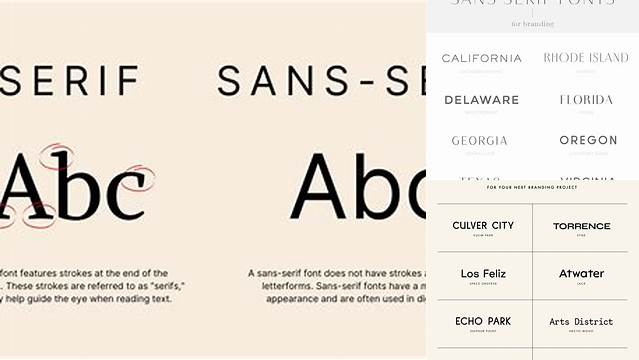
Best Sans Serif Fonts: Enhance Your Reading Experience
Choosing the right font can significantly impact your reading experience. When it comes to readability, sans serif fonts often take the spotlight. But with so many options out there, how do you pick the best sans serif font for your needs? Don't worry, guys, we've got you covered! This guide dives deep into the world of sans serif fonts, exploring their characteristics, benefits, and top recommendations for a seamless reading experience. So, buckle up and let's get started on this font-tastic journey!
1. What Are Sans Serif Fonts?
Before we jump into the specifics, let's understand what sans serif fonts actually are. Simply put, “sans serif” means “without serifs.” Serifs are the small decorative strokes that you see at the end of letters in fonts like Times New Roman. Sans serif fonts, on the other hand, have clean, minimalist lines, making them appear modern and straightforward. Think of fonts like Arial, Helvetica, and Open Sans – these are your classic sans serif examples. The simplicity of these fonts often translates to improved readability, especially in digital environments where screen resolution can sometimes be a challenge. When you're deciding on the best sans serif font, consider the context in which you'll be using it. For digital displays, the clean lines of a sans serif font can reduce eye strain, making them ideal for websites, e-books, and apps. This is because the uniform strokes make each character distinct and easy to recognize, even at smaller sizes. However, the best part about sans serif fonts is how versatile they are. You can use them for almost anything from writing a blog or creating headings for printed posters. In the end, it all boils down to which ones you like!
2. Why Use Sans Serif Fonts for Reading?
So, why should you consider using sans serif fonts for reading? There are several compelling reasons. Firstly, their clean and simple design promotes better readability, particularly on screens. The absence of serifs makes the letters less cluttered, allowing your eyes to flow smoothly from one letter to the next. This is especially beneficial for longer texts or extended reading sessions, where eye strain can become a real issue. Secondly, sans serif fonts often have a modern and minimalist aesthetic, which can enhance the overall look and feel of your content. Whether you're designing a website, writing a report, or crafting an e-book, using the best sans serif font can give your text a professional and polished appearance. Think about your target audience and the message you want to convey. A contemporary sans serif might be perfect for a tech blog, while a more humanist sans serif could be ideal for a literary journal. Choosing the right font is about more than just readability; it's about creating the right mood and tone for your readers. Ultimately, guys, if you want to go for a minimalist style, then you should go for sans serif fonts!
3. Top 5 Best Sans Serif Fonts for Online Reading
When it comes to online reading, certain sans serif fonts shine brighter than others. Here are our top 5 picks for the best sans serif fonts that will make your online reading experience a pleasure:
Open Sans: Designed with an open form and neutral yet friendly appearance, Open Sans is highly readable across various screen sizes. Its versatility makes it a go-to choice for websites, apps, and e-books. Open Sans is all about clarity and simplicity. Its open letterforms and slightly wider proportions make it incredibly easy on the eyes, even when reading long stretches of text. This font is a workhorse – it's reliable, versatile, and always delivers a clean, professional look. Many designers love it because it works beautifully in both headings and body text, making it a seamless choice for any project. Open Sans was designed by Steve Matteson, Type Director of Ascender Corp, and commissioned by Google. So, you know it’s got some serious pedigree behind it! Plus, it's free to use, which is always a bonus. When you’re looking for a font that just works, Open Sans is often the answer.
Roboto: Another Google creation, Roboto, offers a dual nature. It has a mechanical skeleton and largely geometric forms while also featuring friendly and open curves. This balance makes it excellent for both headlines and body text. Roboto is a font that's designed for modern interfaces. It's clean, efficient, and has a touch of personality that sets it apart from other geometric sans serifs. Christian Robertson, the designer, described it as having a “mechanical skeleton” but with curves that allow letters to flow naturally. This means it’s incredibly readable on screens, even at small sizes. Roboto's versatility is one of its biggest strengths. It works equally well for websites, apps, and print materials. It’s the kind of font that fades into the background in the best way possible – it lets your content shine without drawing unnecessary attention to itself. If you need a font that’s both functional and stylish, Roboto is a fantastic choice. It is the definition of a sans serif font that looks great everywhere.
Lato: With its semi-rounded details, Lato exudes warmth while maintaining a sleek and modern feel. Its readability at various sizes makes it a popular choice for both body text and headings. Lato was designed by Łukasz Dziedzic and is described as a sans serif typeface with “serious yet friendly” qualities. The semi-rounded details at the ends of the strokes give it a warm, approachable feel, while the strong structure ensures it remains highly legible. Lato is a fantastic choice for anyone looking for a font that’s both professional and inviting. It’s incredibly versatile and works well in a variety of contexts, from websites and blogs to presentations and print materials. One of the reasons Lato is so popular is its excellent readability. The open letterforms and balanced proportions make it easy on the eyes, even when reading long blocks of text. If you're aiming for a design that's both modern and friendly, Lato might be the perfect sans serif font for you.
Helvetica: A classic and widely used font, Helvetica is known for its clean lines and neutral appearance. Its timeless design ensures readability across various media and applications. Helvetica is arguably one of the most iconic typefaces of all time. Designed in 1957 by Max Miedinger and Eduard Hoffmann, it has become synonymous with clean, modern design. Its neutral appearance makes it incredibly versatile – it can be used in almost any context, from corporate branding to editorial design. Helvetica’s strength lies in its simplicity. The even strokes and consistent letterforms make it highly legible, even at small sizes. It’s a font that doesn’t shout for attention but quietly and confidently gets the job done. While some designers might argue that Helvetica is overused, there’s no denying its enduring appeal and effectiveness. If you're looking for a font that’s classic, reliable, and highly readable, Helvetica is always a solid choice, guys. This sans serif font looks clean and can be used for almost anything!
Arial: Often compared to Helvetica, Arial is another widely used sans serif font that offers excellent readability. Its familiar design makes it a safe and reliable choice for various reading platforms. Arial is a typeface that’s so ubiquitous, you might not even realize how often you see it. Designed by Patricia Saunders and Robin Nicholas in 1982, it was created as a more affordable alternative to Helvetica. While it shares many similarities with its famous cousin, Arial has its own distinct characteristics. It is slightly wider, and its strokes have a bit more variation in thickness. Arial is a workhorse font – it’s reliable, readable, and available on almost every computer system. This makes it an excellent choice for anyone who needs a font that will display consistently across different platforms. While it might not be the most exciting typeface, Arial’s strength lies in its simplicity and clarity. If you need a font that’s universally compatible and highly legible, Arial is a safe bet. It's a basic sans serif font, but it always does the trick!
4. How to Choose the Best Sans Serif Font for Your Needs
Choosing the best sans serif font isn't just about picking one that looks good. It's about finding a font that meets your specific needs and enhances the overall reading experience. Here’s a step-by-step guide to help you make the right choice:
1. Define Your Purpose
First, consider what you'll be using the font for. Are you designing a website, writing an e-book, or creating marketing materials? The purpose will influence the font's characteristics you need. For example, a website might benefit from a font optimized for screen readability, while a printed brochure might allow for more stylistic choices. If you're writing an e-book, you'll want a font that's easy on the eyes for extended reading. If you're designing a website, you'll need a font that loads quickly and looks good on various devices. Think about the end-user and what will make their experience the best it can be. Sans serif fonts are diverse, but finding the one that aligns with your purpose is the first key step. You may even ask yourself “what am I even trying to achieve here?”. It could be the difference between a hit and a miss.
2. Consider Readability
Readability is paramount, especially for body text. Look for fonts with clear, open letterforms and adequate spacing. Test the font at different sizes to ensure it remains legible. A font might look great in a headline but become a blurry mess in body text. Pay attention to the x-height (the height of lowercase letters) and the stroke contrast (the difference in thickness between the thickest and thinnest parts of the letters). Higher x-heights and moderate stroke contrast generally improve readability. Also, consider the font's kerning (the space between individual letters) and tracking (the overall spacing of the font). Well-kerned and tracked fonts are easier to read and less likely to cause eye strain. The goal is to make the text as effortless as possible to read. Choosing sans serif fonts with excellent readability can significantly improve user engagement and comprehension, guys.
3. Think About Your Audience
Who are you designing for? Your target audience can influence your font choice. A younger audience might appreciate a modern and playful font, while a more professional audience might prefer a classic and conservative one. Consider the demographics, preferences, and expectations of your readers. A sans serif font that resonates with your audience will help you communicate your message more effectively. For example, if you're designing a website for a tech startup, you might choose a sleek, geometric sans serif that conveys innovation and modernity. On the other hand, if you're designing a brochure for a financial institution, you might opt for a more traditional and authoritative sans serif. The key is to choose a font that aligns with your brand's identity and resonates with your target audience. It's like choosing the right outfit for an occasion – you want to make a good impression and fit in with the crowd.
4. Test and Compare
Don't settle for the first font you like. Test several fonts side-by-side to compare their readability and overall appearance. Use real content and view it on different devices and screen sizes. Testing allows you to see how the font performs in various contexts. Try using the font in a mock-up of your design to get a sense of how it looks in the final product. Print out samples and view them in different lighting conditions. Ask for feedback from others – sometimes a fresh perspective can reveal issues you might have missed. There are numerous online tools and resources that can help you compare fonts and test their readability. Don't underestimate the power of testing; it can save you from making a font choice that you later regret. This applies to all sans serif fonts!
5. Consider Font Pairing
In many designs, you'll use more than one font. Think about how your chosen sans serif font pairs with other fonts, such as serif fonts for headings or decorative fonts for accents. A harmonious font pairing can enhance the visual appeal of your design. The general rule is to choose fonts that complement each other without being too similar. Pairing a sans serif font with a serif font can create a nice contrast and hierarchy in your design. For example, you might use a bold sans serif for headlines and a classic serif for body text. Alternatively, you can pair two different sans serif fonts, but make sure they have enough contrast in their weights and styles to avoid visual monotony. Online resources and font pairing tools can provide inspiration and guidance. Remember, the goal is to create a visually balanced and engaging design that enhances readability and user experience.
5. The Importance of Legibility in Sans Serif Fonts
Legibility is a critical aspect of font design, and it's particularly important when choosing sans serif fonts for reading. Legibility refers to how easily individual characters can be distinguished from one another. A highly legible font allows readers to quickly and effortlessly recognize each letter, which reduces eye strain and improves reading comprehension. Several factors contribute to a font's legibility, including the shape and proportions of the letters, the stroke contrast, and the spacing between characters. When evaluating sans serif fonts, pay close attention to these factors to ensure that your chosen font is as legible as possible. Fonts with clear, open letterforms and consistent stroke widths tend to be more legible than fonts with complex or stylized designs. Adequate spacing between letters and words is also essential for legibility. A font that is too tightly spaced can be difficult to read, while a font that is too loosely spaced can appear disjointed. Ultimately, the best way to assess a font's legibility is to test it with real text in the context in which it will be used. If your readers can easily and comfortably read the text, you've likely chosen a legible font.
6. Best Sans Serif Fonts for Headings
While some sans serif fonts excel in body text, others shine as headings. The best sans serif font for headings should be bold, attention-grabbing, and easy to read at larger sizes. Here are a few top contenders:
1. Montserrat
Montserrat is a geometric sans serif that exudes modernity and sophistication. Its strong letterforms and clean lines make it an excellent choice for headings. Montserrat was inspired by the urban typography of the Montserrat neighborhood in Buenos Aires. It has a distinct visual presence that makes it stand out, which is perfect for headlines and titles. This sans serif font is also surprisingly readable at smaller sizes, making it versatile for use in both headings and body text. If you're looking for a font that's both stylish and functional, Montserrat is a great option. The balanced proportions and clear letterforms ensure that your headings will be eye-catching and easy to read, making it a popular choice among designers and brands.
2. Bebas Neue
Bebas Neue is a tall and condensed sans serif that commands attention. Its clean, minimalist design makes it a popular choice for headlines and posters. Bebas Neue has become a go-to font for designers looking to make a statement. Its narrow letterforms allow you to fit more text into a limited space, making it ideal for headlines, banners, and other display purposes. This sans serif font has a modern, almost industrial feel that works well in a variety of contexts. While it's primarily used for headings, Bebas Neue can also be effective in short blocks of text where a strong visual impact is desired. If you're aiming for a bold and contemporary look, Bebas Neue is a fantastic choice. Keep in mind that because this font is so condensed, it is not the best for writing long text.
3. Raleway
Raleway is an elegant sans serif with a slightly more delicate appearance. Its thin strokes and refined letterforms make it perfect for headings that need a touch of sophistication. Raleway is a versatile font that works well in a variety of applications, but it truly shines as a headline typeface. Its clean lines and subtle curves give it a polished and professional look. This sans serif font is particularly effective in designs where you want to convey a sense of elegance and refinement. While it’s beautiful in headlines, Raleway can also be used in body text, especially in designs where a touch of sophistication is desired. If you're looking for a font that strikes a balance between modernity and elegance, Raleway is an excellent option, guys. Overall, this may be the best sans serif font in the list.
7. Best Sans Serif Fonts for Body Text
For body text, readability is key. The best sans serif font should be easy on the eyes for extended reading. Here are some top choices:
1. Open Sans (Revisited)
Open Sans' open letterforms and neutral appearance make it an excellent choice for body text, as we mentioned earlier. It's highly readable across various screen sizes. Open Sans is a tried-and-true option for body text. Its clear and straightforward design ensures that your text will be easy to read, even in long blocks. This sans serif font was specifically designed for readability, making it a reliable choice for websites, apps, and print materials. The slightly wider proportions of the letters contribute to its excellent legibility. If you're looking for a font that's both functional and visually appealing, Open Sans is a fantastic choice for your body text needs.
2. Lato (Revisited)
Lato's semi-rounded details give it a warm and friendly feel, making it inviting for readers. Its readability at various sizes makes it a strong contender for body text. Lato strikes a perfect balance between professionalism and approachability. Its friendly and inviting letterforms make it a pleasure to read, while its clean lines ensure that it remains highly legible. This sans serif font is a great choice for body text in a variety of contexts, from websites and blogs to reports and presentations. The subtle warmth of Lato can help engage your readers and make your content more accessible. If you want a font that’s both readable and inviting, Lato is an excellent pick.
3. Roboto (Revisited)
Roboto's dual nature makes it suitable for both headlines and body text. Its clean lines and open forms ensure readability, even at smaller sizes. Roboto is a versatile and reliable option for body text. Its clean and efficient design ensures that your text will be easy to read on screens. This sans serif font is specifically optimized for digital environments, making it an excellent choice for websites, apps, and e-books. The mechanical skeleton of Roboto provides a strong foundation, while its friendly curves add a touch of personality. If you're looking for a font that's both functional and stylish, Roboto is a solid choice for your body text needs. Overall, you can never go wrong with sans serif fonts such as Roboto.
8. Sans Serif Fonts for Print vs. Digital
When choosing sans serif fonts, it's important to consider whether you're designing for print or digital media. While some fonts work well in both formats, others are better suited for one or the other. In print, you have more flexibility with font choice because you don't have to worry about screen resolution or rendering issues. Digital media, on the other hand, requires fonts that are optimized for screen display. Fonts with clear, open letterforms and consistent stroke widths tend to work well in both print and digital formats. However, some fonts that look great in print may appear blurry or pixelated on screens, especially at smaller sizes. Similarly, some fonts that are highly legible on screens may look too stark or minimalist in print. When designing for both print and digital media, it's best to choose a sans serif font that's versatile enough to perform well in both contexts. Testing your font choices in both formats is always a good idea to ensure that they look their best in any medium.
9. Geometric Sans Serif Fonts
Geometric sans serif fonts are characterized by their clean lines, simple shapes, and often circular or rectangular forms. These fonts have a modern and minimalist aesthetic, making them popular choices for a variety of design applications. Geometric sans serif fonts often convey a sense of precision, efficiency, and modernity. They work well in corporate branding, website design, and editorial layouts. Some popular geometric sans serif fonts include Futura, Gotham, and Avenir. Futura, designed in 1927, is a classic example of a geometric sans serif with its perfect circles and triangles. Gotham, a more recent design, has a similarly clean and geometric feel. Avenir, designed by Adrian Frutiger, combines geometric shapes with a humanist touch. When choosing a geometric sans serif, consider the overall tone and message of your design. These fonts can be incredibly effective when used thoughtfully, but they may not be the best choice for designs that require a warmer or more traditional feel. Overall, remember that sans serif fonts offer a wide range of flexibility.
10. Humanist Sans Serif Fonts
Humanist sans serif fonts are inspired by traditional calligraphy and handwriting, giving them a more organic and approachable feel. These fonts often feature subtle variations in stroke weight and letterform that mimic the natural rhythm of handwriting. Humanist sans serif fonts are generally considered to be more readable than geometric sans serif fonts, especially in body text. They convey a sense of warmth, friendliness, and authenticity. Some popular humanist sans serif fonts include Gill Sans, Myriad, and Lucida Grande. Gill Sans, designed by Eric Gill in the early 20th century, is a classic example of a humanist sans serif. Myriad, designed by Robert Slimbach and Carol Twombly for Adobe, is another popular choice for its versatility and readability. Lucida Grande is a humanist sans serif that was designed specifically for on-screen readability, making it a great choice for websites and user interfaces. When choosing a humanist sans serif, consider the overall tone and message of your design. These fonts are particularly well-suited for designs that aim to convey a sense of warmth, trust, and human connection.
11. Modern Sans Serif Fonts
Modern sans serif fonts are characterized by their clean lines, sharp angles, and often high stroke contrast. These fonts have a sleek and sophisticated aesthetic, making them popular choices for contemporary designs. Modern sans serif fonts often convey a sense of innovation, technology, and elegance. They work well in branding, advertising, and editorial design. Some popular modern sans serif fonts include Akzidenz-Grotesk, Univers, and DIN 1451. Akzidenz-Grotesk, designed in the late 19th century, is considered to be one of the earliest and most influential modern sans serif fonts. Univers, designed by Adrian Frutiger in the 1950s, is another classic example of a modern sans serif with its clean and consistent letterforms. DIN 1451, originally designed for German road signage, is a highly legible and functional modern sans serif. When choosing a modern sans serif, consider the overall tone and message of your design. These fonts can be incredibly effective when used thoughtfully, but they may not be the best choice for designs that require a warmer or more traditional feel. You can never go wrong with the modern sans serif fonts!
12. Sans Serif Fonts for Websites
Choosing the right font for your website is crucial for creating a positive user experience. The best sans serif font for websites should be highly readable on screens, load quickly, and complement your overall design aesthetic. When selecting fonts for your website, consider factors such as font size, line height, and contrast. Smaller font sizes may require fonts with more open letterforms and generous spacing. Adequate line height is essential for readability, especially in long blocks of text. Sufficient contrast between the text and background colors is also crucial for ensuring that your text is easy to read. Some popular sans serif fonts for websites include Open Sans, Roboto, Lato, and Montserrat. These fonts are all highly legible on screens and come in a variety of weights and styles, giving you plenty of flexibility in your design. Testing your font choices on different devices and browsers is always a good idea to ensure that your website looks its best for all users.
13. Sans Serif Fonts for Mobile Devices
Designing for mobile devices requires special attention to typography. The best sans serif font for mobile should be highly legible on small screens and in various lighting conditions. Mobile users often read text in short bursts, so readability is paramount. Choose fonts with clear, open letterforms and adequate spacing to ensure that your text is easy to scan and comprehend. Font size is also an important consideration for mobile devices. Smaller screens may require larger font sizes to maintain legibility. Consider using responsive typography techniques to adjust font sizes based on screen size and orientation. Some popular sans serif fonts for mobile devices include Roboto, Open Sans, and Noto Sans. These fonts are all designed to be highly legible on screens, even at smaller sizes. Testing your font choices on different mobile devices is essential to ensure that your text looks its best for all users. Sans serif fonts for mobile users are extremely important, since the majority of web users use mobile devices.
14. Sans Serif Fonts for E-books
Choosing the right font for your e-book can significantly enhance the reading experience. The best sans serif font for e-books should be easy on the eyes for extended reading sessions. Readers often spend hours reading e-books, so readability is crucial. Choose fonts with clear, open letterforms and consistent stroke widths to minimize eye strain. Font size and line height are also important considerations for e-books. Readers should be able to adjust the font size to their liking, so choose fonts that look good at a variety of sizes. Adequate line height is essential for readability, especially in long paragraphs. Some popular sans serif fonts for e-books include Open Sans, Lato, and Charis SIL. These fonts are all designed to be highly legible and comfortable to read for extended periods. Remember, the right font can make a big difference in the reader's enjoyment and comprehension of your e-book.
15. Pairing Sans Serif Fonts with Serif Fonts
Font pairing is an art, and one of the most common pairings is sans serif with serif fonts. This combination can create a visually appealing and balanced design. Serif fonts, with their small decorative strokes, often convey a sense of tradition and authority. Sans serif fonts, on the other hand, have a more modern and minimalist feel. When pairing sans serif fonts with serif fonts, it's important to choose fonts that complement each other without being too similar. A classic combination is a bold sans serif for headings paired with a more traditional serif for body text. This creates a clear visual hierarchy and enhances readability. Some popular pairings include Open Sans (sans serif) with Merriweather (serif), Roboto (sans serif) with Roboto Slab (serif), and Lato (sans serif) with Lora (serif). Experiment with different combinations to find the best pairing for your design. Always consider the overall tone and message you want to convey. Some sans serif fonts look great when paired with serif fonts, so make sure to research which ones look the best!
16. The Psychology of Sans Serif Fonts
Fonts, like colors, can evoke emotions and convey messages. The psychology of fonts plays a significant role in how your designs are perceived. Sans serif fonts are often associated with modernity, simplicity, and clarity. Their clean lines and minimalist aesthetic can convey a sense of efficiency, innovation, and professionalism. In contrast, serif fonts are often associated with tradition, authority, and elegance. When choosing a sans serif font, consider the message you want to convey and the emotions you want to evoke. A sleek, geometric sans serif might be perfect for a tech startup, while a more humanist sans serif might be better suited for a company that values warmth and human connection. Understanding the psychology of fonts can help you make more informed design decisions and create more impactful communications. When paired with other elements, sans serif fonts are even more powerful!
17. Trends in Sans Serif Typography
Typography trends are constantly evolving, and it's important to stay up-to-date on the latest styles and techniques. In recent years, there has been a growing trend towards clean, minimalist typography, with a strong emphasis on readability. Sans serif fonts continue to be popular choices for both web and print design. Geometric sans serif fonts are experiencing a resurgence, with designers embracing their clean lines and modern aesthetic. Variable fonts, which allow for greater flexibility and customization, are also gaining traction. These fonts can adapt to different screen sizes and resolutions, making them ideal for responsive design. Another trend is the use of bolder and more expressive typography, with designers experimenting with larger font sizes, heavier weights, and more unique letterforms. Ultimately, the best typography choices depend on the specific needs and goals of your design. However, staying informed about current trends can help you create more visually appealing and effective communications. This can include the use of best sans serif fonts!
18. The Future of Sans Serif Fonts
The future of sans serif fonts is likely to be shaped by technological advancements and changing design trends. Variable fonts, as mentioned earlier, are poised to play a major role in the future of typography. These fonts offer unprecedented flexibility and customization, allowing designers to create more dynamic and responsive designs. Artificial intelligence (AI) is also likely to influence the future of font design. AI algorithms can be used to generate new fonts, optimize existing fonts for readability, and even personalize typography based on individual user preferences. As screen resolutions continue to improve, we may also see a trend towards more detailed and intricate sans serif designs. However, readability will always be a primary concern, so fonts with clear, open letterforms are likely to remain popular. Overall, the future of sans serif fonts is bright, with exciting possibilities on the horizon. It is important to embrace modern technology when creating new best sans serif fonts!
19. Font Licensing for Sans Serif Fonts
Font licensing is an important consideration when choosing sans serif fonts for your projects. Most fonts are protected by copyright, which means you need a license to use them legally. Font licenses specify how you can use the font, including whether you can use it for commercial projects, embed it in websites or apps, or modify it. There are several types of font licenses, ranging from free and open-source licenses to commercial licenses that can cost hundreds of dollars. When choosing a font, always check the license to ensure that it meets your needs. Some websites offer free sans serif fonts under open-source licenses, such as the SIL Open Font License (OFL). These licenses typically allow you to use the font for any purpose, including commercial projects, as long as you adhere to the terms of the license. Commercial font licenses, on the other hand, may have more restrictions on how you can use the font. Always read the license carefully before using a font in your project to avoid copyright infringement. It is important to be aware of the laws surrounding these fonts, since it can lead to some issues!
20. Free vs. Paid Sans Serif Fonts
When choosing sans serif fonts, you'll encounter both free and paid options. Free fonts can be a great way to save money, especially if you're on a tight budget. However, paid fonts often offer higher quality and more features. Free fonts are typically available under open-source licenses, such as the SIL Open Font License (OFL). These licenses allow you to use the font for any purpose, including commercial projects, as long as you adhere to the terms of the license. However, free fonts may not always be as well-designed or as comprehensive as paid fonts. Paid fonts, on the other hand, are often created by professional type designers and undergo rigorous testing to ensure quality and readability. They may also come with more features, such as multiple weights and styles, language support, and OpenType features. When deciding between free and paid sans serif fonts, consider your budget, the needs of your project, and the level of quality you require. If you need a high-quality font with a wide range of features, a paid font may be the best choice. However, if you're on a budget and need a font for a less demanding project, a free font may be sufficient.
21. Creating Your Own Sans Serif Font
If you're feeling ambitious, you can even try creating your own sans serif font. Font design is a complex process that requires skill and patience, but it can be a rewarding experience. There are several software programs available for font design, including FontLab Studio, Glyphs, and Robofont. These programs provide tools for creating and editing letterforms, adjusting spacing and kerning, and generating font files. Before you start designing your own font, it's helpful to study existing fonts and understand the principles of typography. Pay attention to the shape and proportions of letters, the stroke contrast, and the spacing between characters. Experiment with different styles and approaches to find your unique voice. Designing a high-quality font takes time and effort, so be prepared to invest the necessary resources. However, the result can be a unique and valuable asset for your design projects. It may even become the best sans serif font!
22. The Influence of Sans Serif Fonts on Design Trends
Sans serif fonts have had a profound influence on design trends throughout history. From the geometric sans serifs of the Bauhaus era to the humanist sans serifs of the mid-20th century, these fonts have shaped the way we communicate visually. In recent years, sans serif fonts have become increasingly popular in web design, branding, and advertising. Their clean lines and minimalist aesthetic align with the current trend towards simplicity and clarity. Geometric sans serifs, in particular, have experienced a resurgence, with designers embracing their modern and sophisticated look. The influence of sans serif fonts can be seen in everything from logos and websites to packaging and print materials. Understanding the history and evolution of sans serif typography can help you make more informed design decisions and create more impactful communications. You may even notice your best sans serif font being influenced in a trend!
23. The Role of Sans Serif Fonts in Branding
Typography plays a crucial role in branding, and sans serif fonts are often used to create a modern and professional brand identity. The font you choose for your logo, website, and marketing materials can convey your brand's personality, values, and message. Sans serif fonts are often associated with modernity, simplicity, and innovation, making them a popular choice for tech companies, startups, and other forward-thinking organizations. When choosing a sans serif font for your brand, consider your target audience, your brand values, and the overall tone and message you want to convey. A sleek, geometric sans serif might be perfect for a tech company, while a more humanist sans serif might be better suited for a company that values warmth and human connection. Consistency is key in branding, so once you've chosen a font, use it consistently across all of your marketing materials. The best sans serif font can be the difference between a good and a bad brand.
24. Sans Serif Fonts in User Interface (UI) Design
Sans serif fonts are widely used in user interface (UI) design due to their excellent readability on screens. A clear and legible UI is essential for creating a positive user experience. Users should be able to easily read and understand the text on your interface, whether they're using a desktop computer, a mobile device, or a tablet. Sans serif fonts with clear, open letterforms and adequate spacing are ideal for UI design. Font size and contrast are also important considerations. Smaller font sizes may require fonts with more open letterforms and generous spacing. Sufficient contrast between the text and background colors is crucial for ensuring that your text is easy to read. Some popular sans serif fonts for UI design include Roboto, Open Sans, and Noto Sans. These fonts are all designed to be highly legible on screens, even at smaller sizes. It is important to research some best sans serif fonts before creating the UI!
25. Sans Serif Fonts in Infographics
Infographics are visual representations of data and information, and typography plays a crucial role in their effectiveness. Sans serif fonts are often used in infographics due to their clean and modern aesthetic. A well-designed infographic should be visually appealing, easy to read, and engaging. The fonts you choose should complement the overall design and help to convey the information clearly. When choosing sans serif fonts for infographics, consider factors such as font size, contrast, and hierarchy. Headings and subheadings should be larger and bolder than body text to create a clear visual hierarchy. Sufficient contrast between the text and background colors is essential for readability. Some popular sans serif fonts for infographics include Montserrat, Lato, and Roboto. These fonts are all versatile and legible, making them great choices for a variety of infographic designs. A great infographic needs best sans serif fonts!
26. Sans Serif Fonts for Logos
The logo is the cornerstone of a company's visual identity, and the typeface used in a logo can significantly impact brand perception. Sans serif fonts are a popular choice for logos due to their clean, modern, and versatile nature. A well-chosen sans serif font can convey a sense of professionalism, innovation, and trustworthiness. When selecting a sans serif font for a logo, consider the brand's personality, target audience, and the message it wants to communicate. Geometric sans serifs, with their sharp lines and geometric shapes, often evoke a sense of technical expertise and precision, making them suitable for technology companies or engineering firms. Humanist sans serifs, with their warmer and more organic forms, can convey a sense of approachability and reliability, which might be ideal for service-oriented businesses or non-profit organizations. The best sans serif fonts are also very scalable so this is another plus when choosing one for your logo.
27. Sans Serif Fonts for Resumes
Choosing the right font for your resume can influence the first impression you make on potential employers. A clean, professional, and easy-to-read resume font can showcase your attention to detail and help your qualifications stand out. Sans serif fonts are often recommended for resumes due to their clarity and modern appearance. However, not all sans serif fonts are created equal. Some might be too casual or decorative for a formal document like a resume. Opt for clean, straightforward sans serif fonts that convey professionalism and readability. Fonts like Arial, Calibri, and Helvetica are safe bets that are widely recognized and easy on the eyes. However, if you're looking for a font that's slightly more distinctive while maintaining a professional tone, consider fonts like Lato, Open Sans, or Roboto. These best sans serif fonts offer a balance of modernity and readability, ensuring that your resume is both visually appealing and easy to review.
28. Sans Serif Fonts for Legal Documents
Legal documents demand clarity and precision, making the choice of typeface paramount. While serif fonts were traditionally favored for their perceived readability in print, sans serif fonts are increasingly used in legal settings, especially for digital documents. The key is to select a sans serif font that offers excellent legibility and minimizes ambiguity, even at small sizes. Fonts like Arial, Helvetica, and Calibri are common choices due to their clean, straightforward design. However, some legal professionals prefer fonts with slightly more character, such as Open Sans or Lato, which offer a balance of readability and modern aesthetics. Regardless of the specific font chosen, consistency is critical in legal documents. Maintain a uniform typeface, size, and spacing throughout the document to ensure clarity and professionalism. Always consider how the best sans serif fonts will be perceived by those reviewing the documents.
29. Sans Serif Fonts for Presentations
The typeface you use in your presentation can significantly impact how effectively your message is conveyed. Sans serif fonts are a popular choice for presentations due to their readability on screens and their modern, professional appearance. When selecting a sans serif font for your presentation, prioritize clarity and legibility, especially for larger audiences or in dimly lit rooms. Choose a font with clean, open letterforms and adequate spacing to ensure that your text is easy to read from a distance. Fonts like Open Sans, Roboto, and Lato are excellent options that provide both readability and a contemporary look. Avoid overly decorative or stylized sans serif fonts that could distract from your message. Using a consistent typeface throughout your presentation will help create a cohesive and professional look. Remember to test your font choices on different screens and projectors to ensure optimal visibility. Overall, sans serif fonts for presentation are the way to go, guys!
30. Resources for Finding Sans Serif Fonts
Finding the best sans serif font for your project can be overwhelming, given the vast array of options available. Fortunately, numerous resources can help you explore, compare, and download sans serif fonts. Google Fonts is a fantastic starting point, offering a vast library of free, open-source fonts that are optimized for web use. Adobe Fonts (formerly Typekit) is another excellent resource, providing access to a wide range of high-quality fonts as part of an Adobe Creative Cloud subscription. Websites like Font Squirrel and MyFonts also offer a diverse selection of both free and commercial sans serif fonts. For inspiration and font pairing ideas, consider exploring websites like Typewolf and Fonts in Use. These resources showcase how different typefaces are used in real-world designs and can help you identify fonts that align with your aesthetic preferences. Remember to always check the licensing terms before using a font in your project to ensure compliance. With a little exploration, you can find the perfect sans serif font to elevate your design. Overall, remember that sans serif fonts can be found easily online.